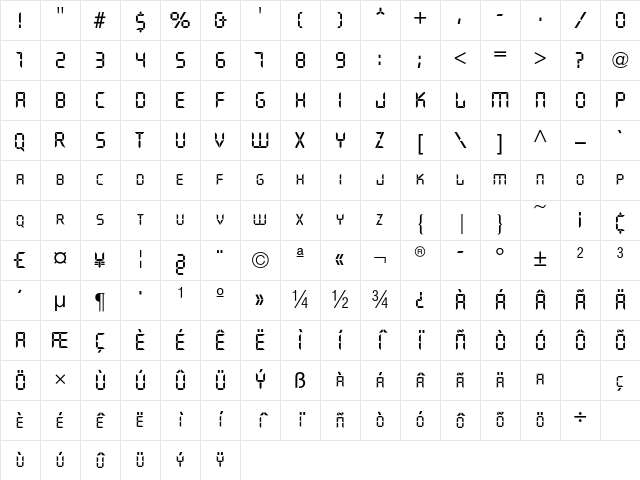
Complete Quartz Mdm glyph index. Displaying only characters natively supported by Quartz Mdm font.
Quartz is a composed and adaptable typeface that performs quietly and consistently across a wide range of design contexts.